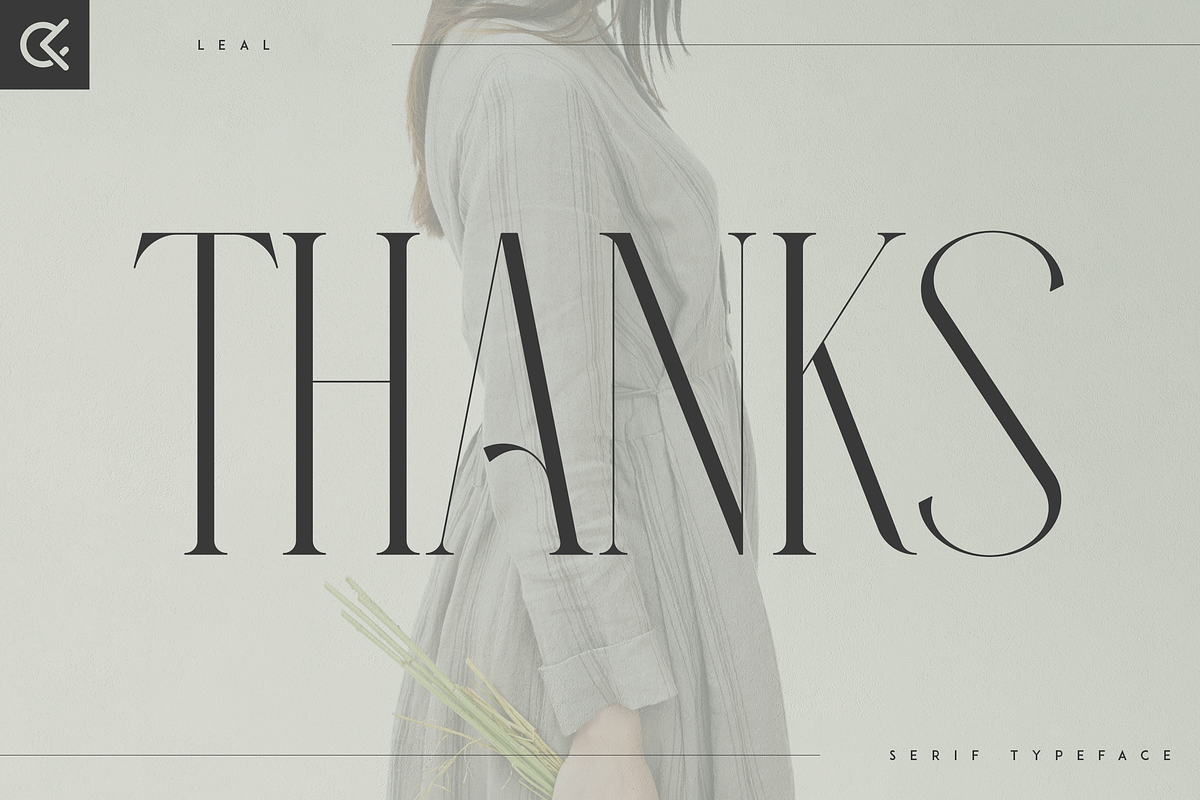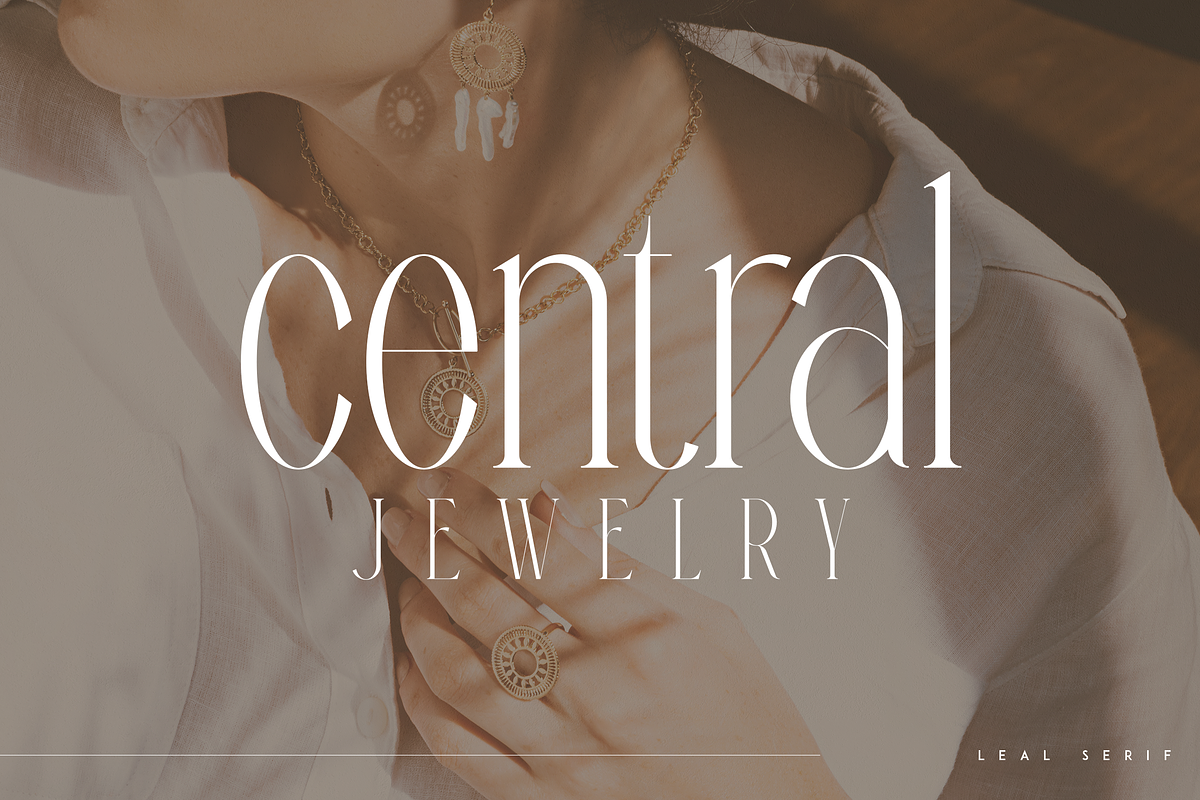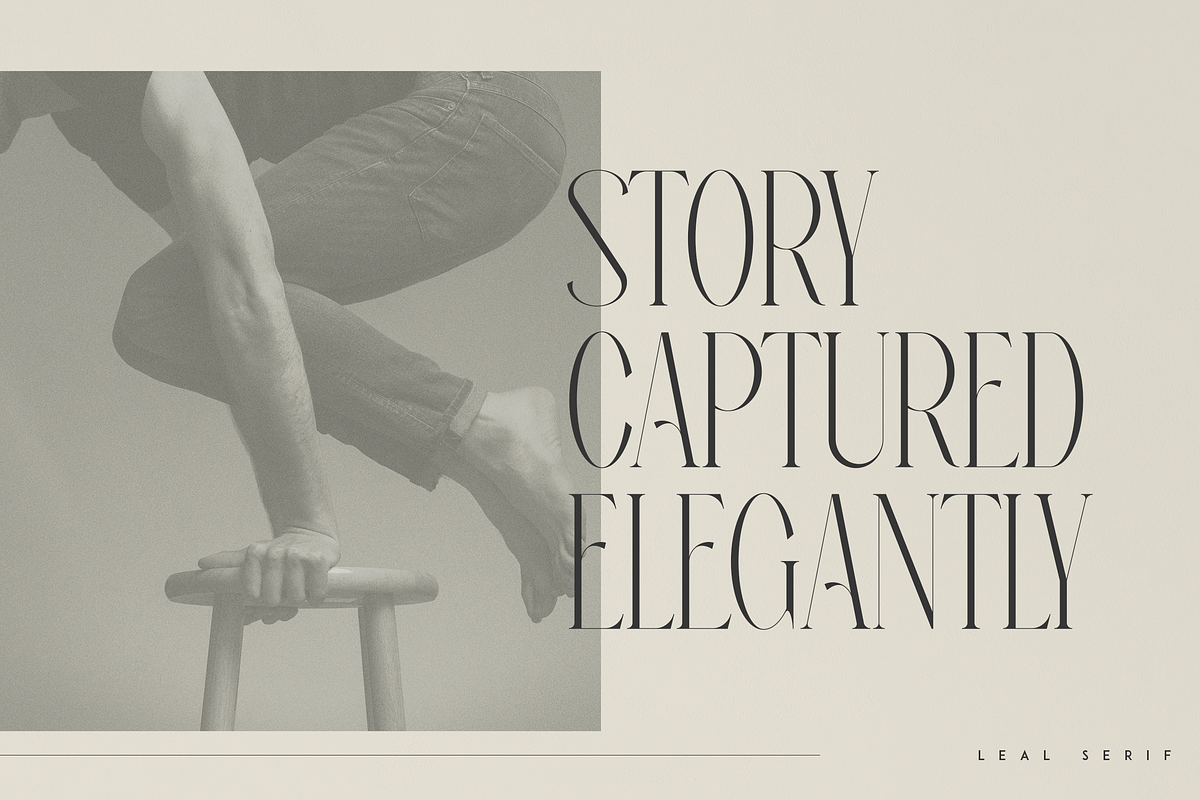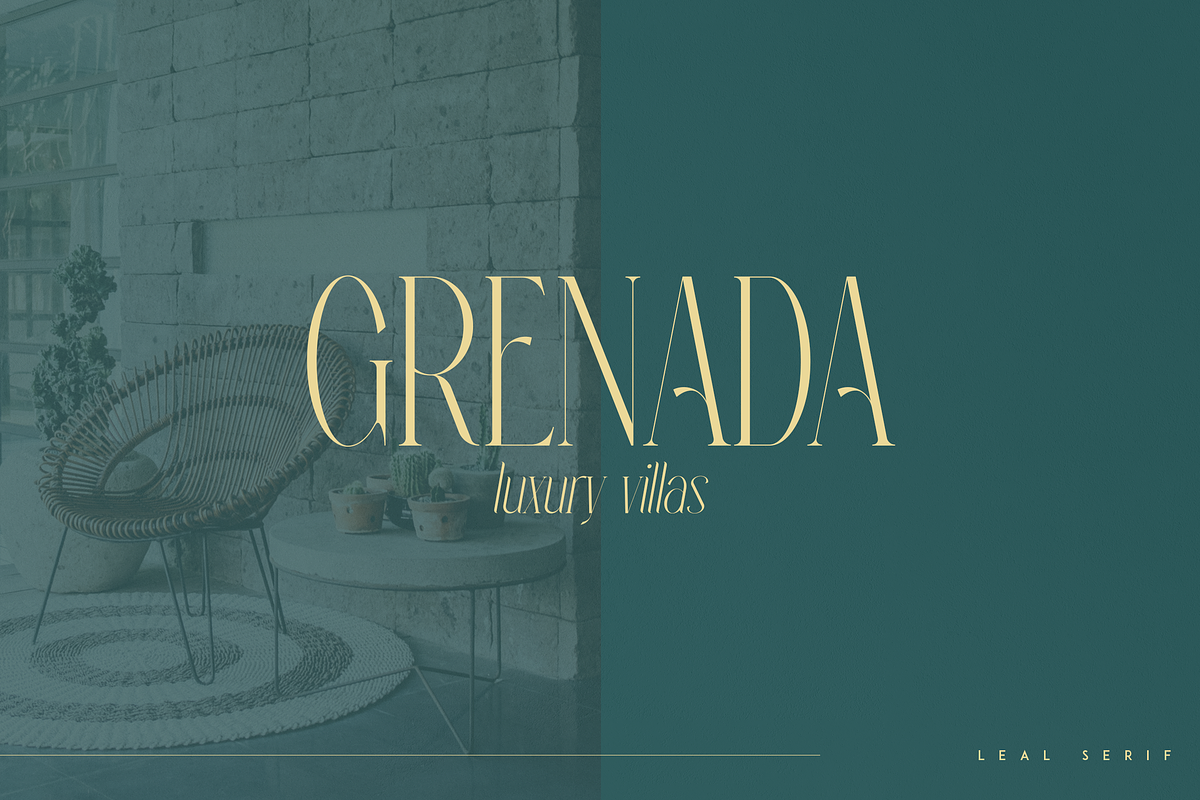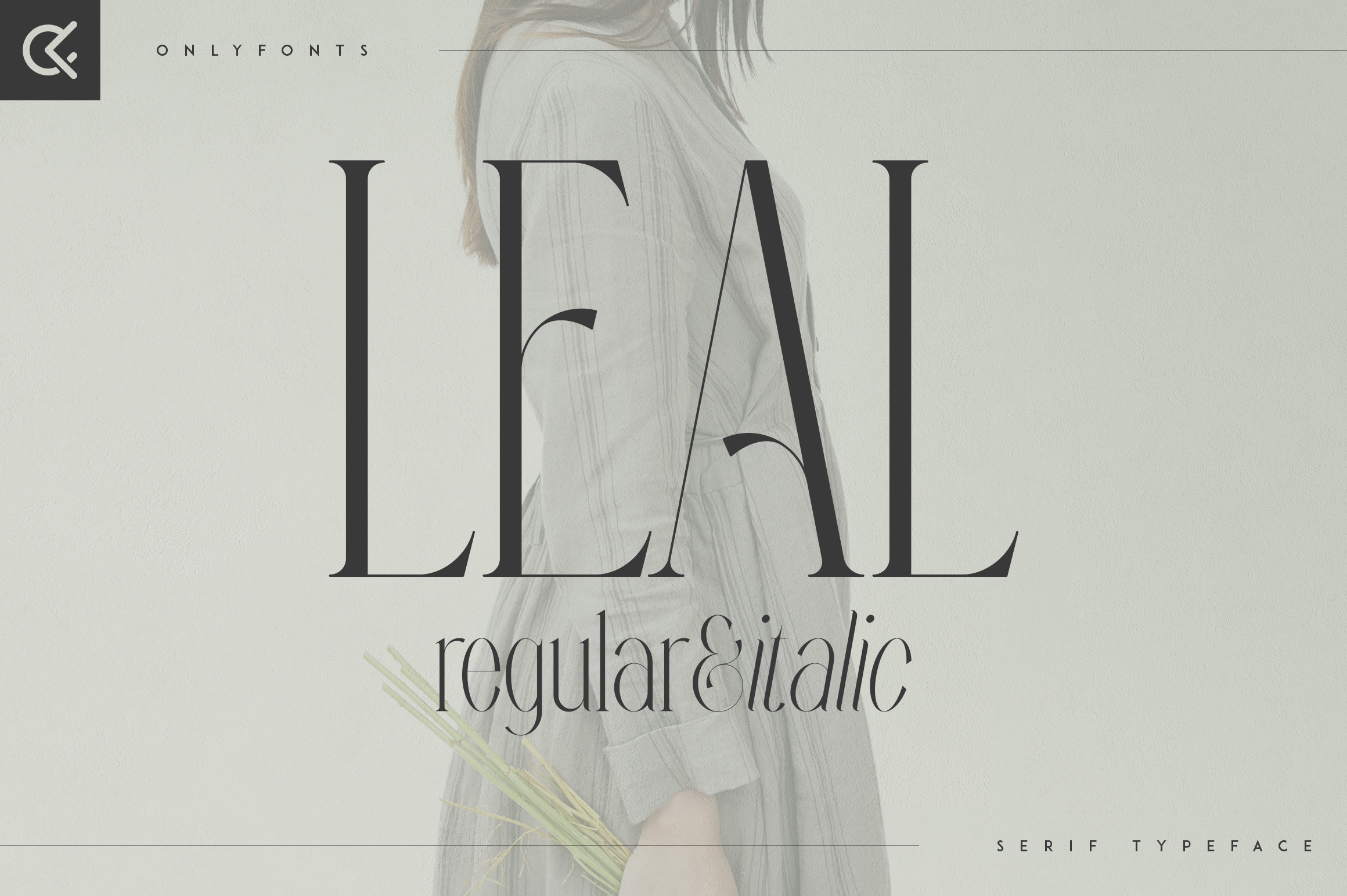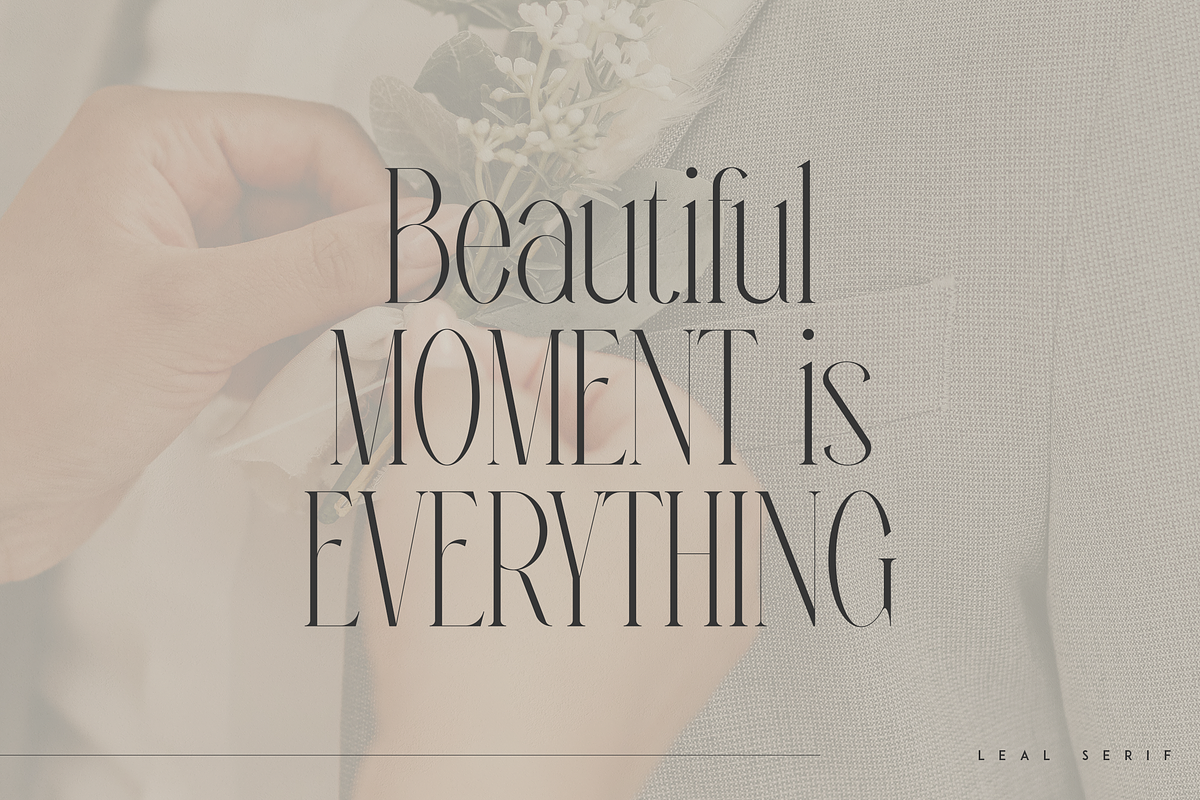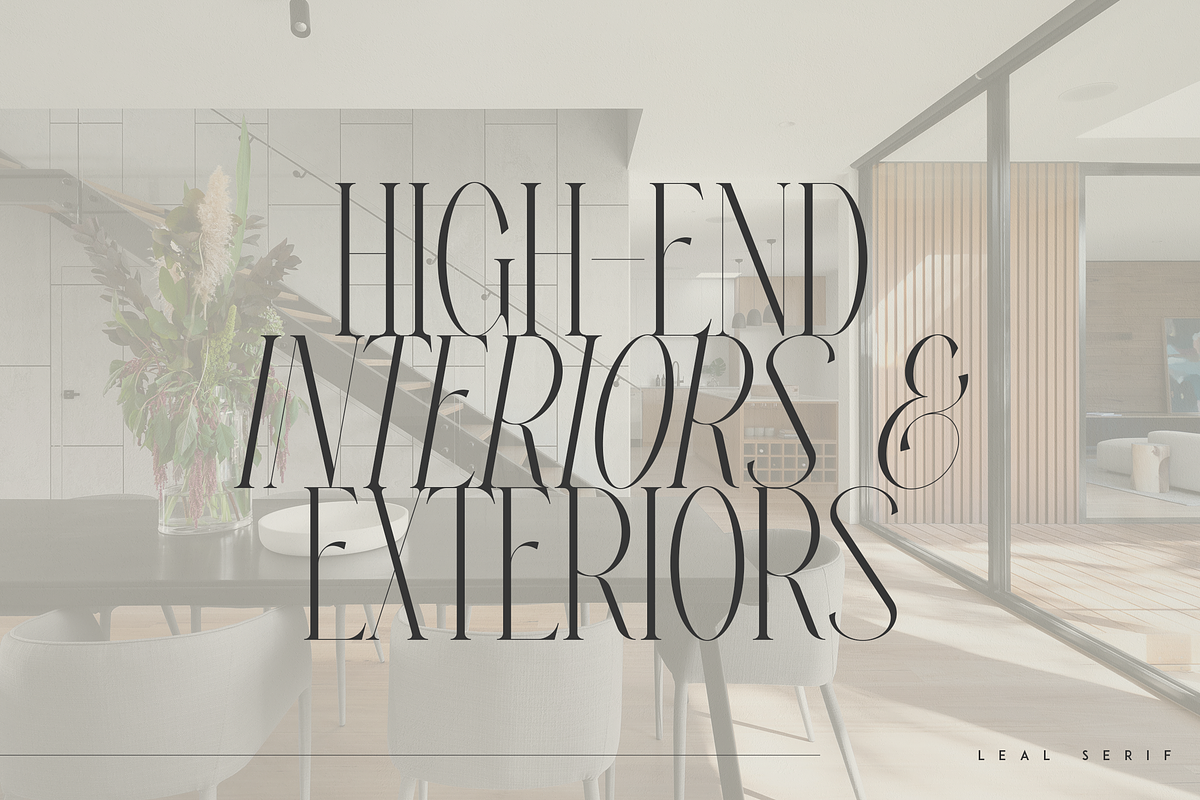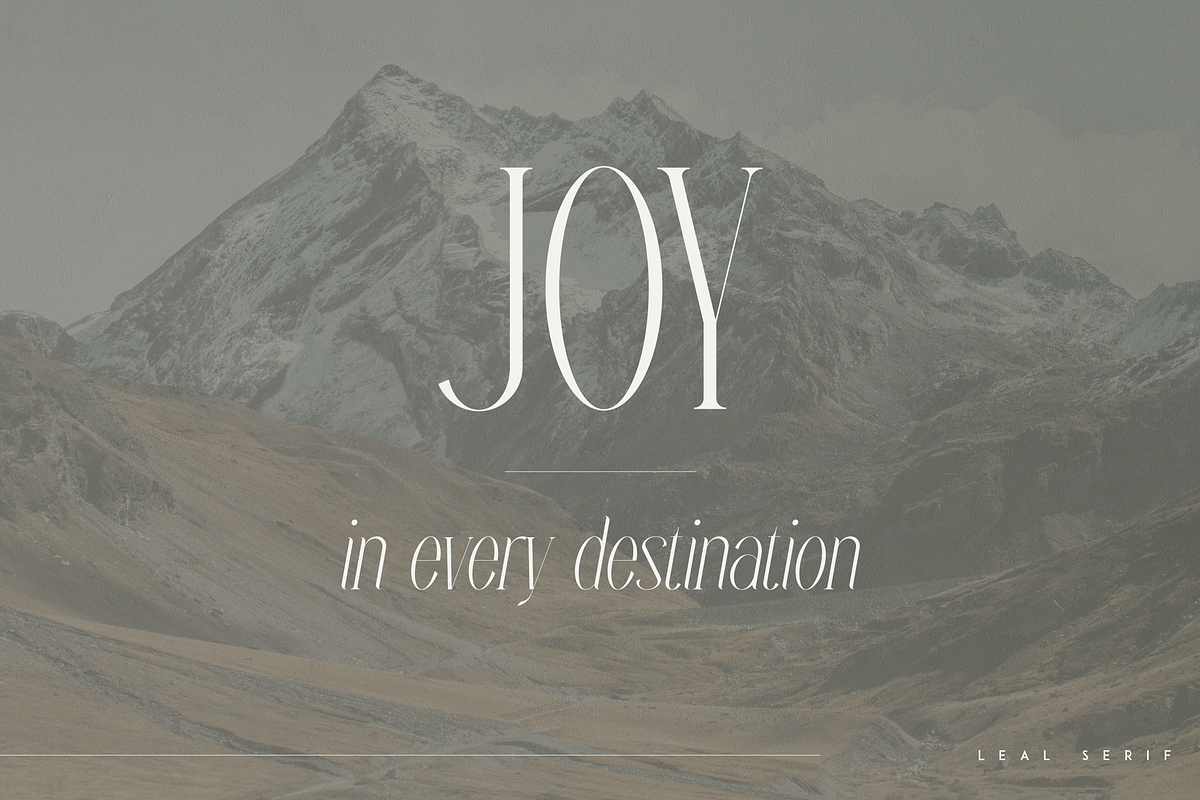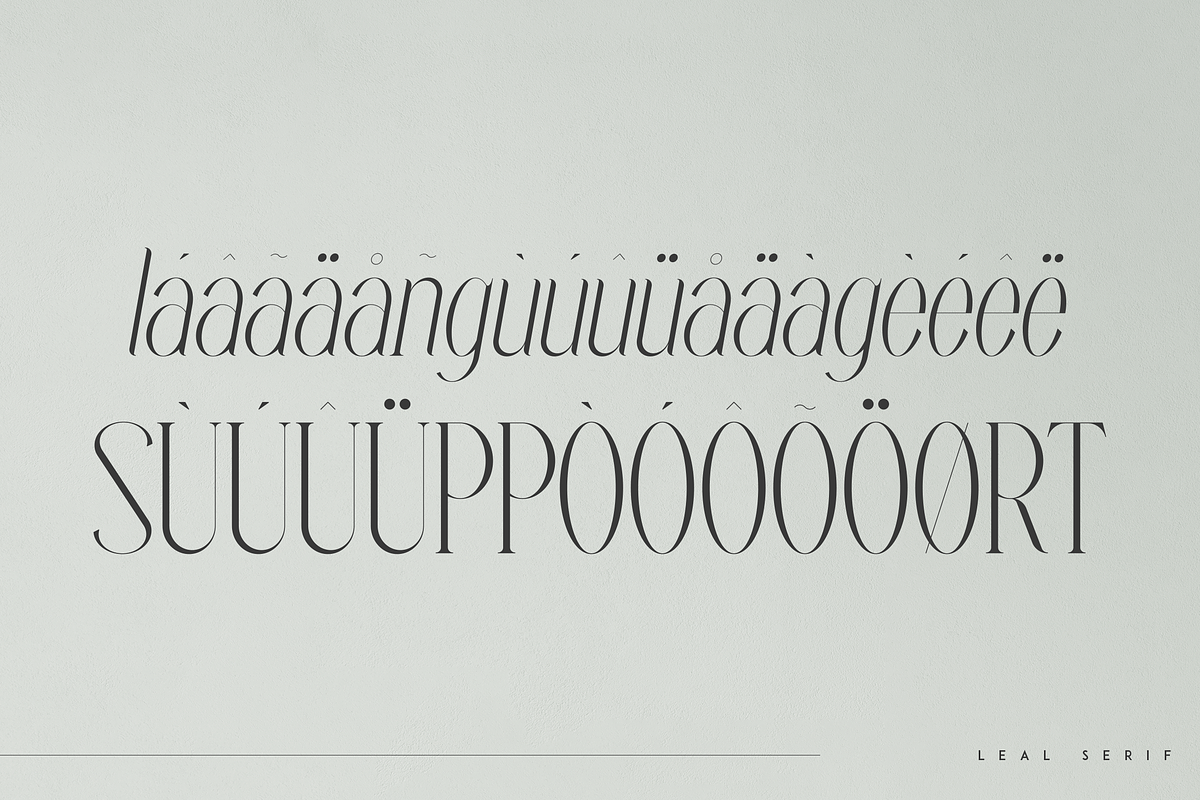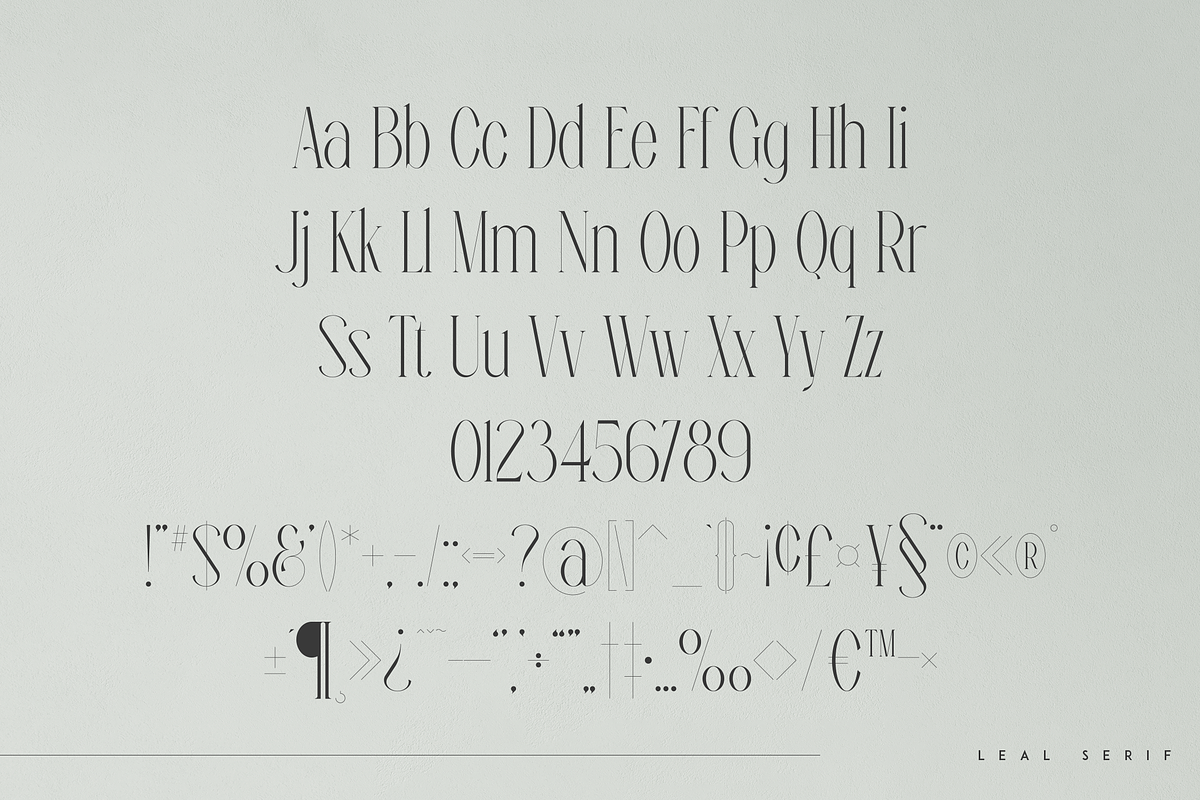
Leal typeface - regular & italic
Introducing Leal serif typeface - regular and italic fonts
Leal is long and retro typeface loaded with 2 fonts, alternate glyphs and multilingual support. It's a very versatile font that works great in large and small sizes.
This font is perfect for branding projects, home-ware designs, product packaging, magazine headers - or simply as a stylish text overlay to any background image.
- Uppercase, lowercase, numeral, punctuation & Symbol
- regular
- italic
- alternate glyphs